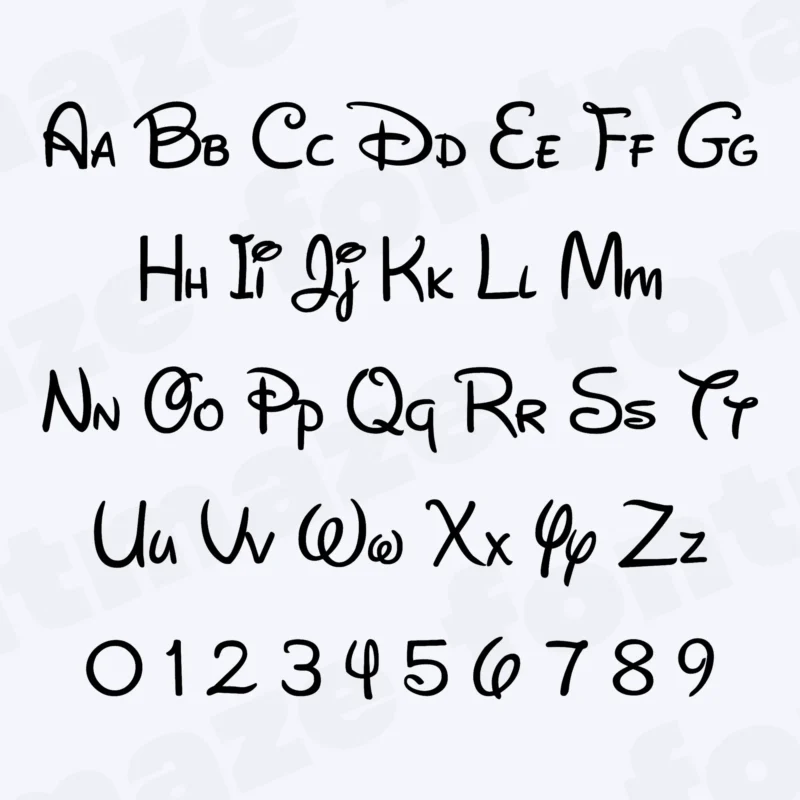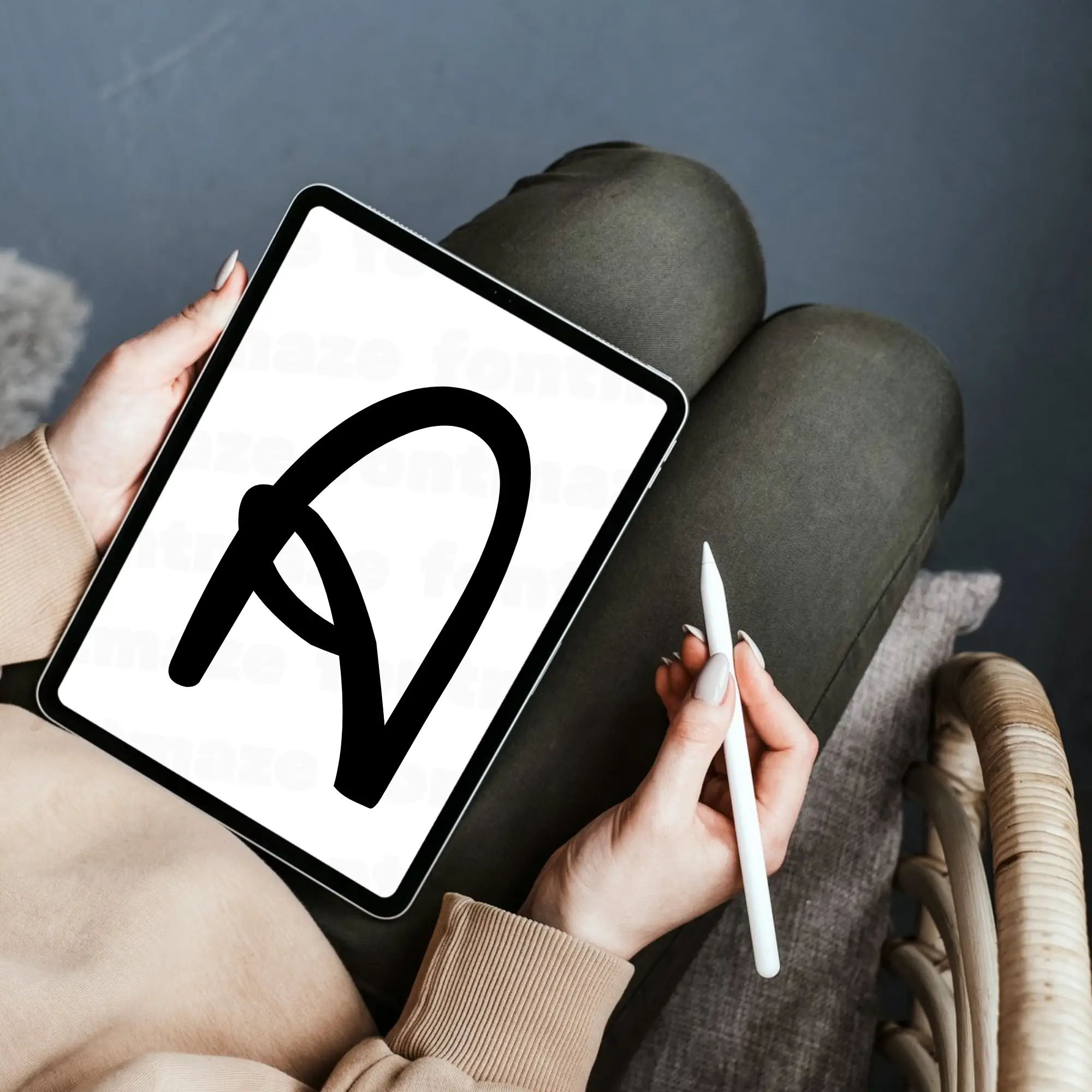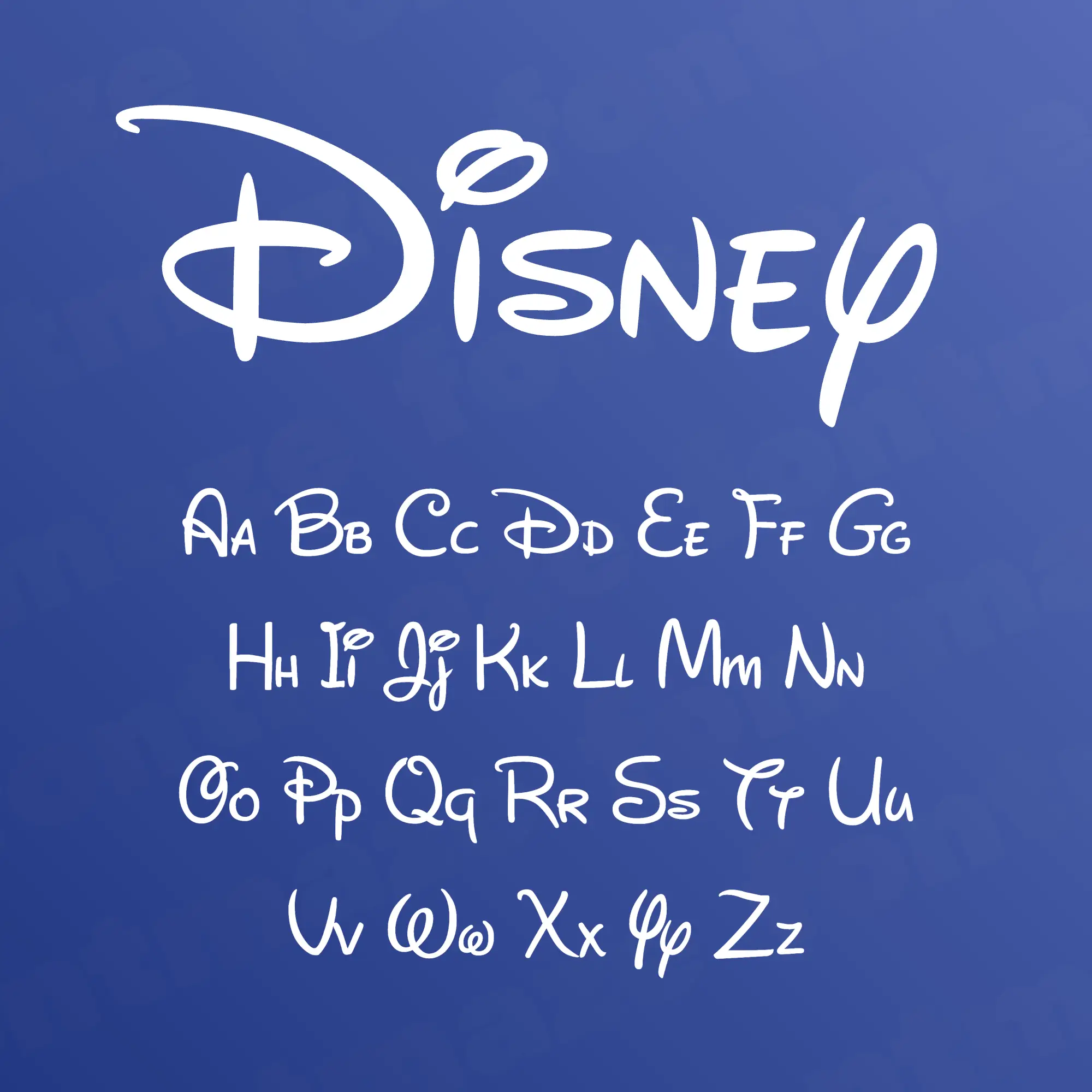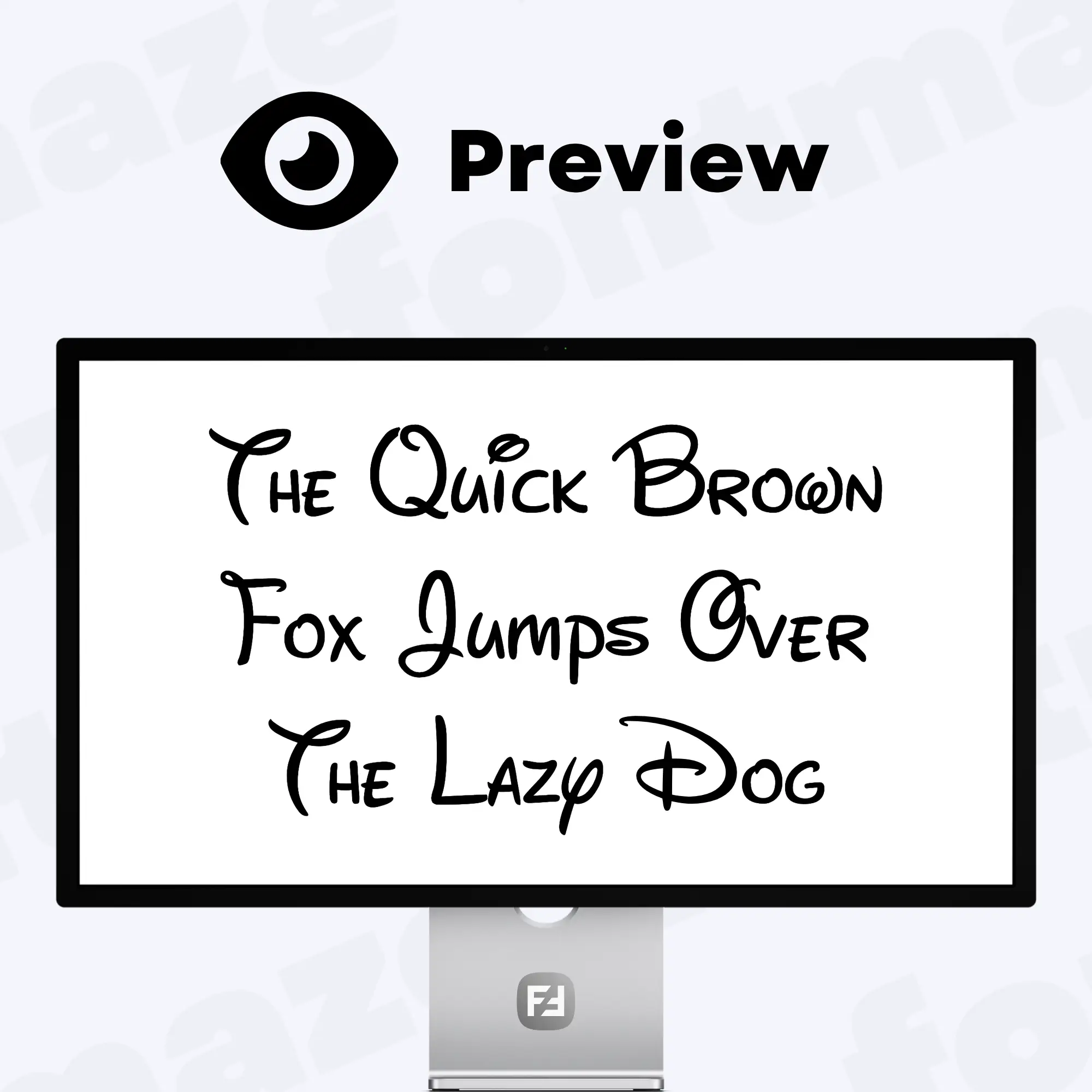
Our Disney Font, a Fairytale Style Typeface
Make your next project stand out with our Disney font – a flexible and stylish typeface made for creators.
Handcrafted in our studio with care and attention to detail, the Disney font brings a unique, personal touch to your designs.